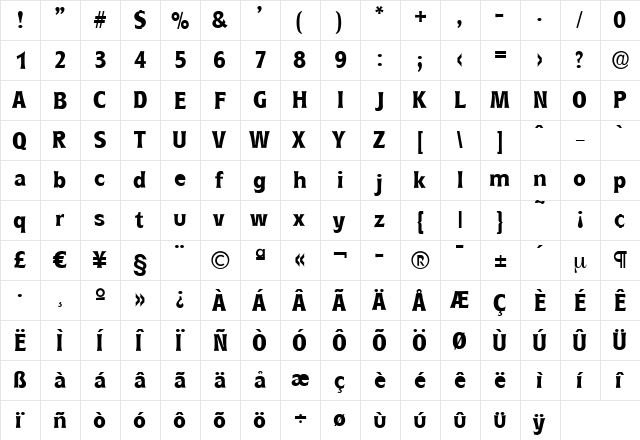
EddieBecker Bold
Design Context for EddieBecker Typeface
EddieBecker offers clean, dependable letterforms without strong stylistic allegiance, making it a practical choice for designers who need flexibility. The heavy weight commands attention and anchors typographic hierarchies.